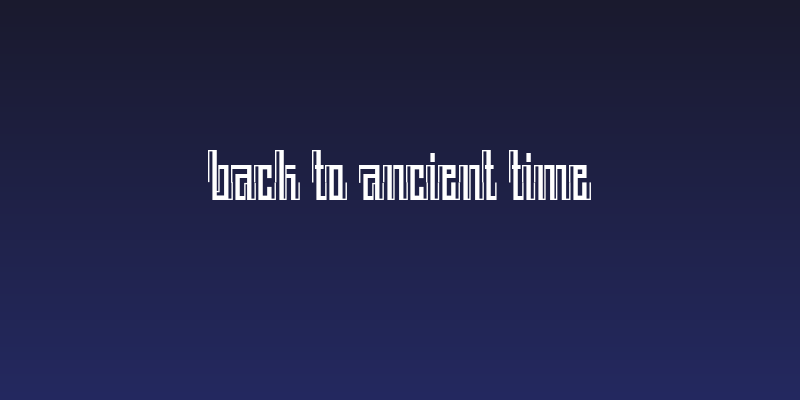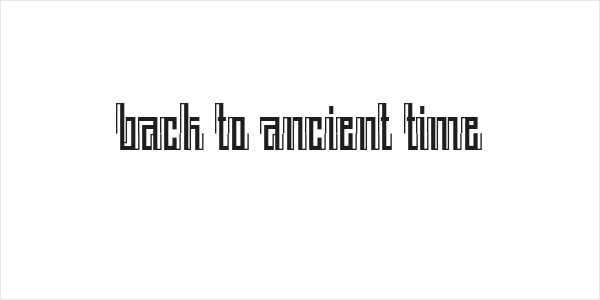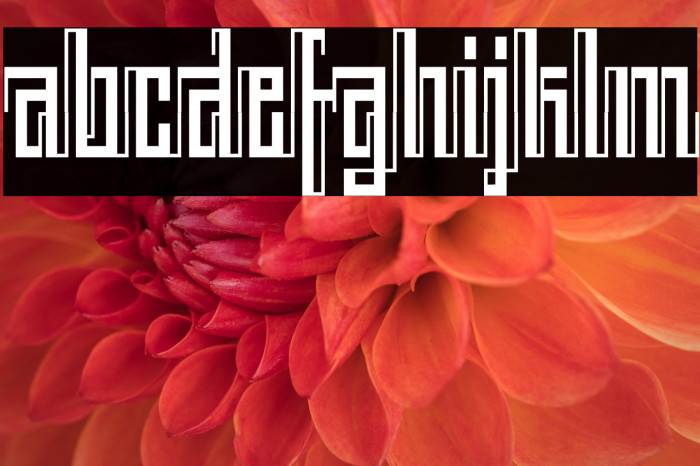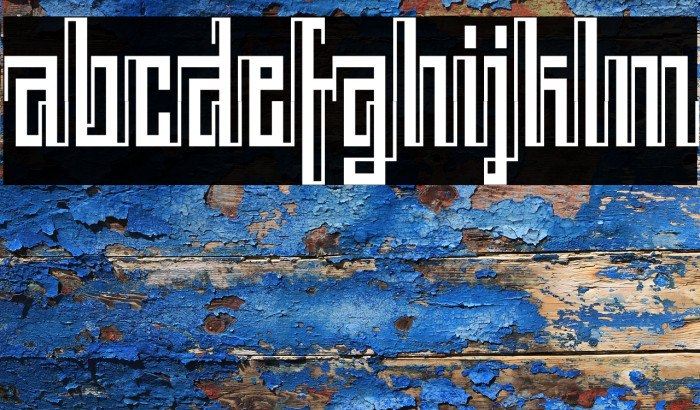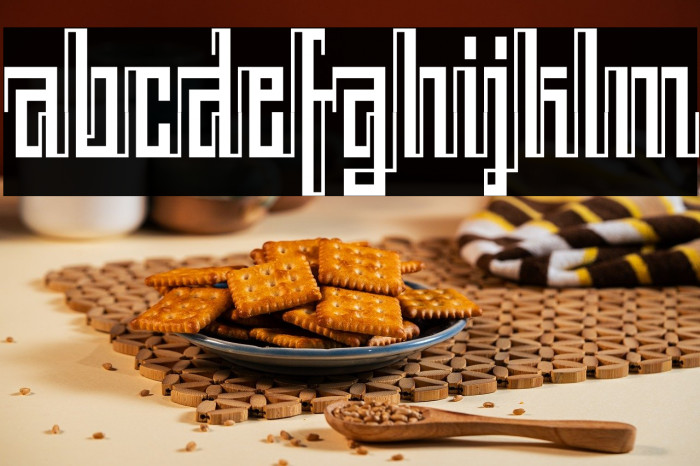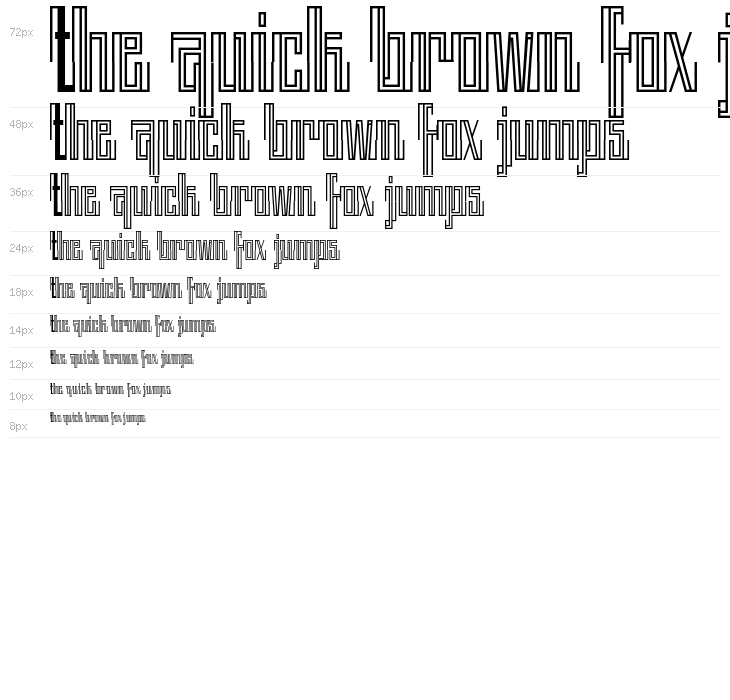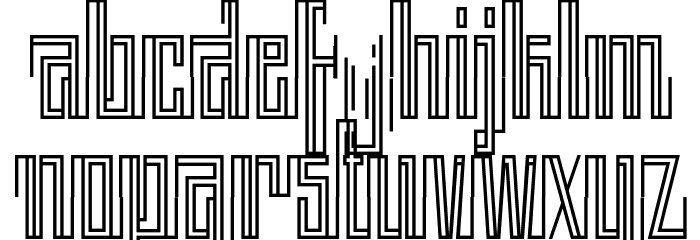
BACK TO ANCIENT TIME Font
BACK TO ANCIENT TIME Description
This font features a geometric and structured design with a strong emphasis on vertical and horizontal lines, creating a maze-like appearance. The characters are composed of bold, straight lines that intersect at right angles, giving it a modern and architectural feel. The uppercase and lowercase letters maintain a consistent height, contributing to a uniform and cohesive look. The font's unique style is reminiscent of digital or futuristic themes, making it stand out in any design. Its intricate design is balanced by the simplicity of its line work, ensuring readability while maintaining an artistic flair.